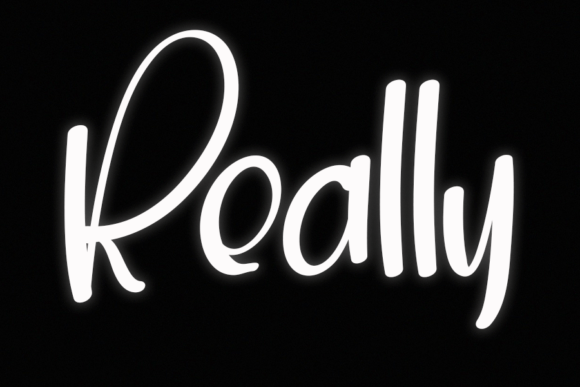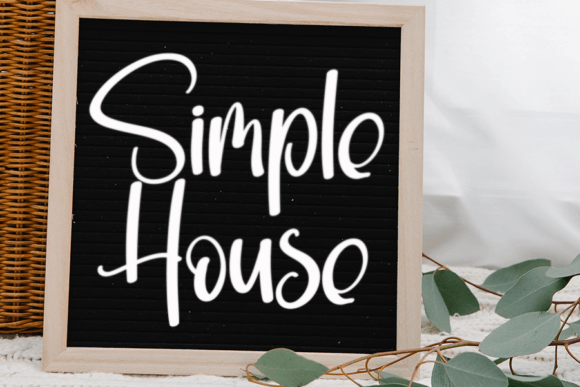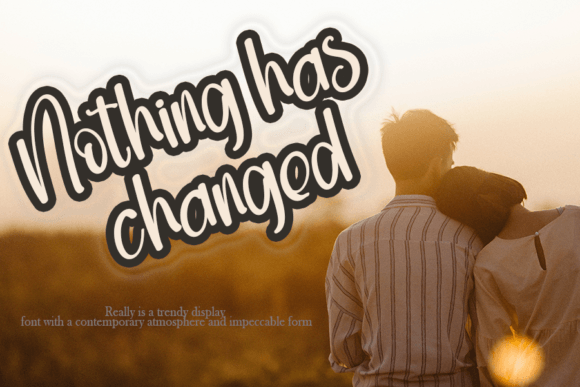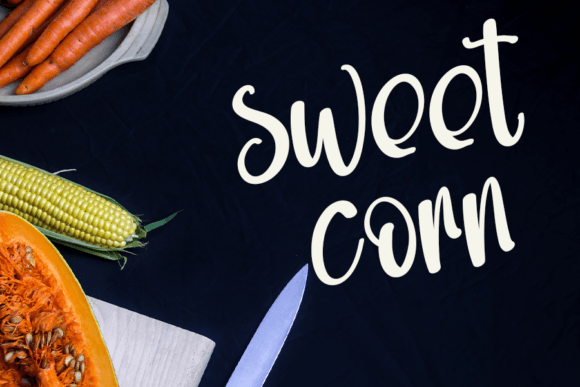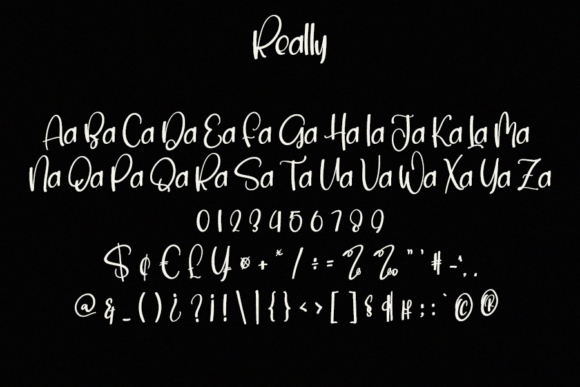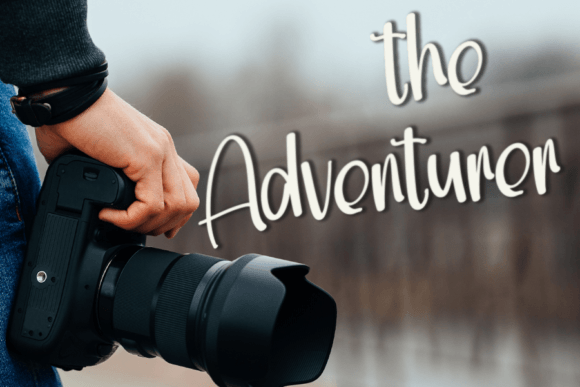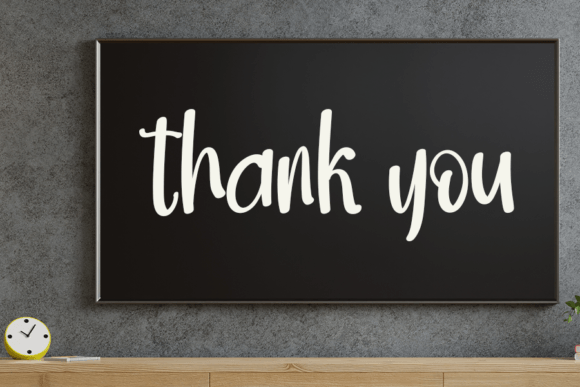
Really Font
About Really Font
If you’re searching for a charming and approachable script, the Really Font download is the perfect match. This simple and friendly handwritten font is designed to infuse warmth and creativity into any design. Its casual strokes and neat character shapes make it ideal for both personal and professional projects that call for a welcoming, human touch.
Whether you’re designing for print or screen, this font has the versatility and ease-of-use to become your favorite go-to choice. The natural hand-drawn feel of Really makes it suitable for countless applications, delivering both clarity and personality.
Perfect Uses for Really Font
Thanks to its universal appeal and clean lines, the Really Font download is ideal for a wide variety of creative needs.
Top uses include:
• Handmade greeting cards and event invitations
• Inspirational quote graphics
• Printable planners and labels
• Product packaging and branding
• Classroom and school materials
• Blog headers and social media graphics
Its friendly and modern look ensures your content feels both professional and approachable—whether on a t-shirt design or an Instagram post.
Why Choose Really Font?
Unlike more decorative or niche typefaces, the Really Font download is designed with everyday usability in mind. Its handcrafted style brings a sense of sincerity and comfort to your designs, without sacrificing readability or balance. Whether you’re working on a cozy family recipe card or a polished business thank-you note, Really strikes the perfect tone.
Designers love this font for its balance between playfulness and professionalism, making it a great staple for your font collection.